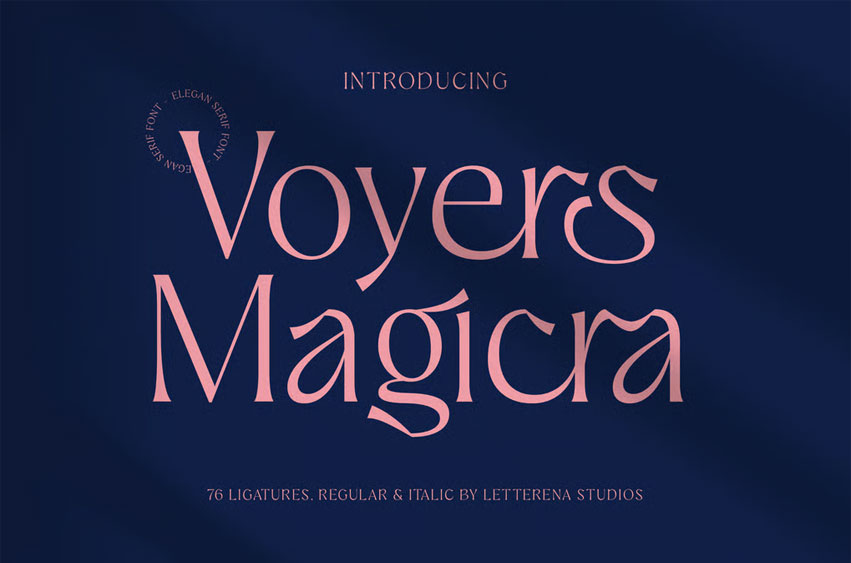
Voyers Magicra Font is an elegant serif font with graceful curves and a touch of mystic refinement, designed to bring luxury and sophistication to your creative projects. Featuring 76 stunning ligatures and artistic alternates, this typeface evokes timeless charm with a modern flair, making it perfect, editorials, invitations, and premium branding.
With its fluid yet structured design, Voyers Magica captures the essence of high-end typography — ideal for fashion magazines, boutique packaging, wedding stationery, and cinematic titles. Every letter flows with artistic rhythm, making it a versatile serif typeface for both print and digital compositions.